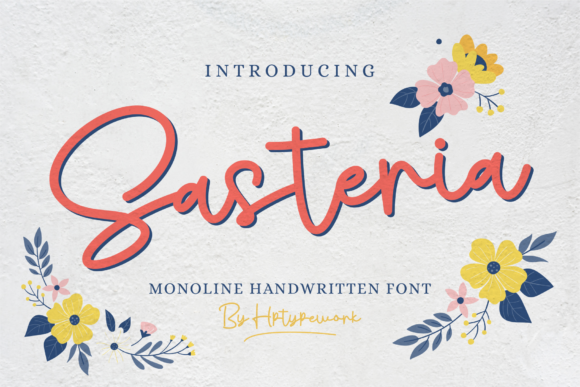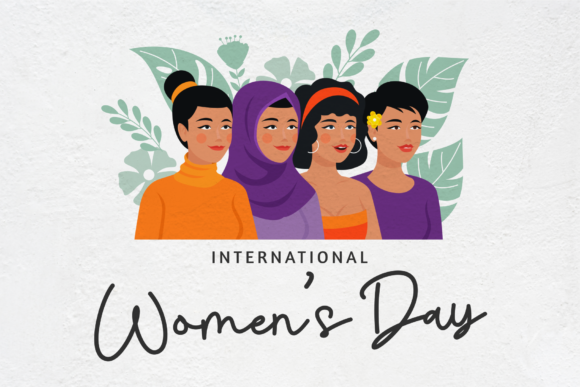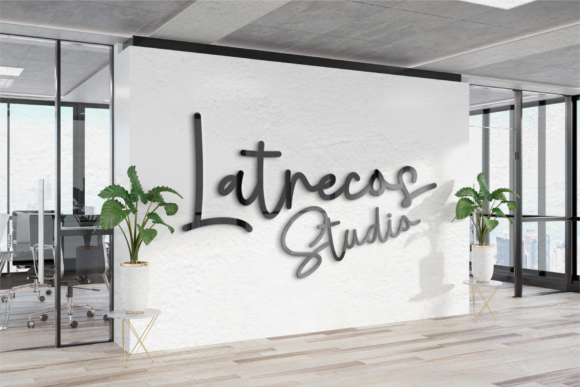
Sasteria Font
Sasteria is an asymmetrical and timeless handwritten font. It is the best choice for creating eye catching logos, branding and quotes. Every letter has a unique and beautiful touch, which will make your design come alive!